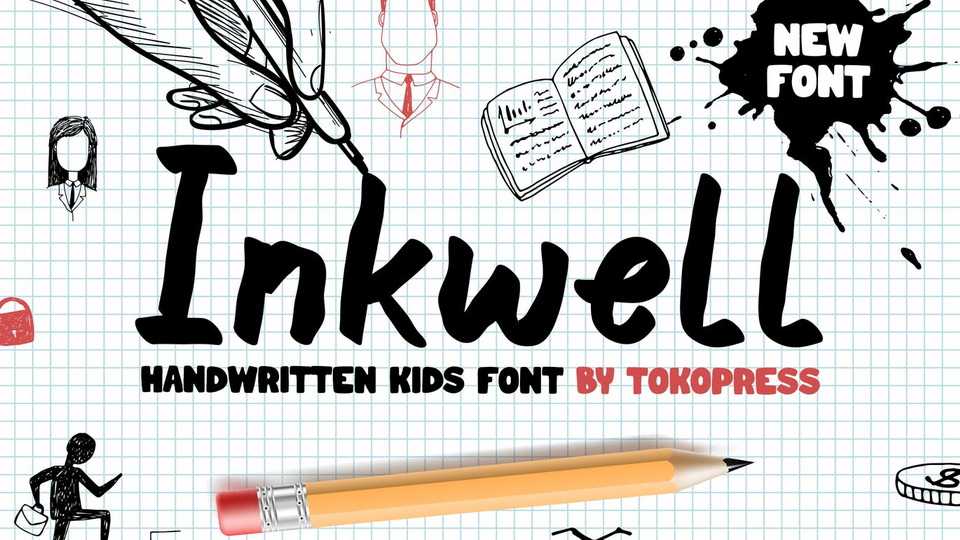
Download Inkwell font, a handwriting kids typeface. Light-hearted sans serif font that matches perfectly with any kids book and children related business purpose.